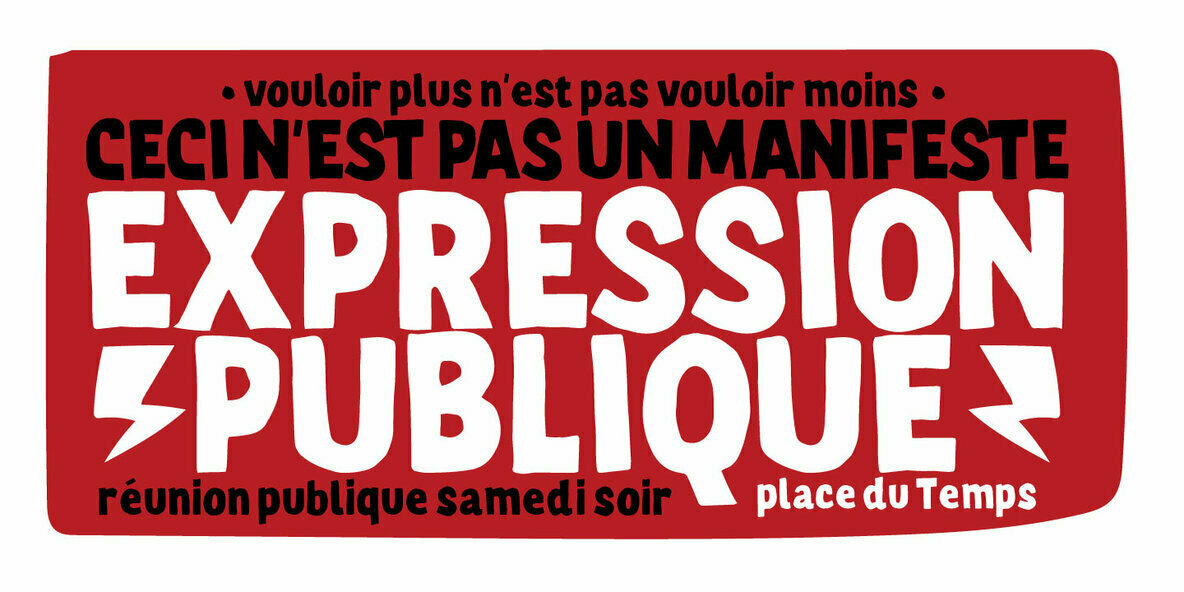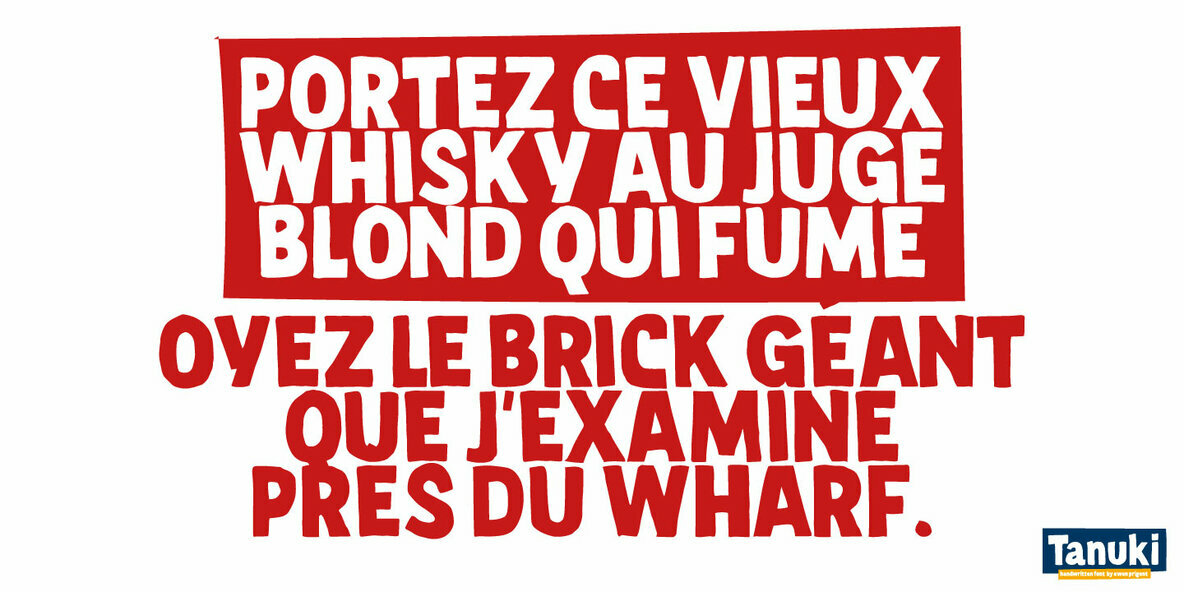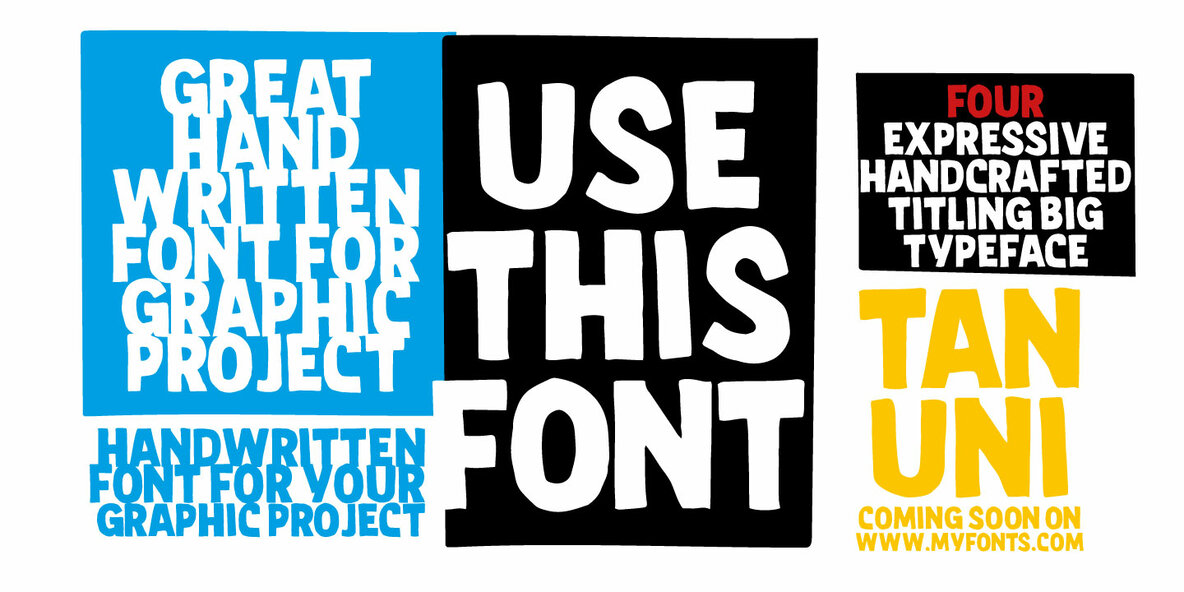
Tanuki
Tanuki by La Boite Graphique is an artisanal typeface that brings a touch of whimsy to any graphic design endeavor. Perfect for projects ranging from packaging and posters to children's books, this handmade font offers a playful yet versatile aesthetic that captivates audiences.Tanuki: Whimsical Handmade Font for Creative Projects